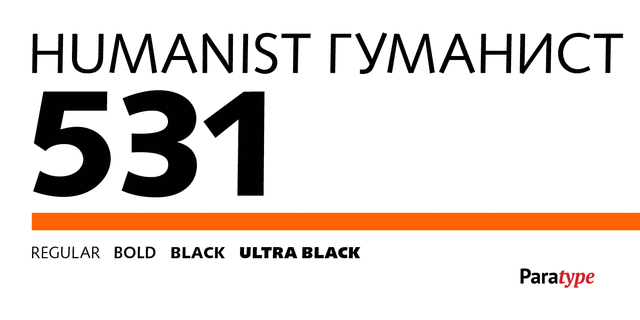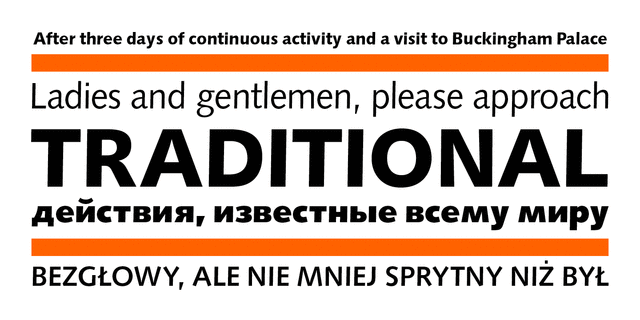
Humanist 531 (4 fonts)
About Humanist 531 is the Bitstream version of Syntax (Stempel, 1968) by Hans Eduard Meier. A humanist sans serif typeface with an optically even thickness of the line which interprets a humanist old style type of the Renaissance. Its vertical strokes are inclined to the right by one degree. Serves well in text and display typography. Cyrillic version was developed at ParaType in 1999 by Isay Slutsker and Manvel Shmavonyan and was awarded Diplomae at Kirillitsa'99 and "bukva:raz!" type design contests.